If you’re looking for high-quality elegant fonts, the collection from Kangfont Studio on Creative Market is a hidden gem. Their fonts are designed with a strong focus on luxury aesthetics, modern serif contrast, and stylish ligatures, making them perfect for designers who want a high-end look.
1. Aurellis – Elegant Luxury Serif Font
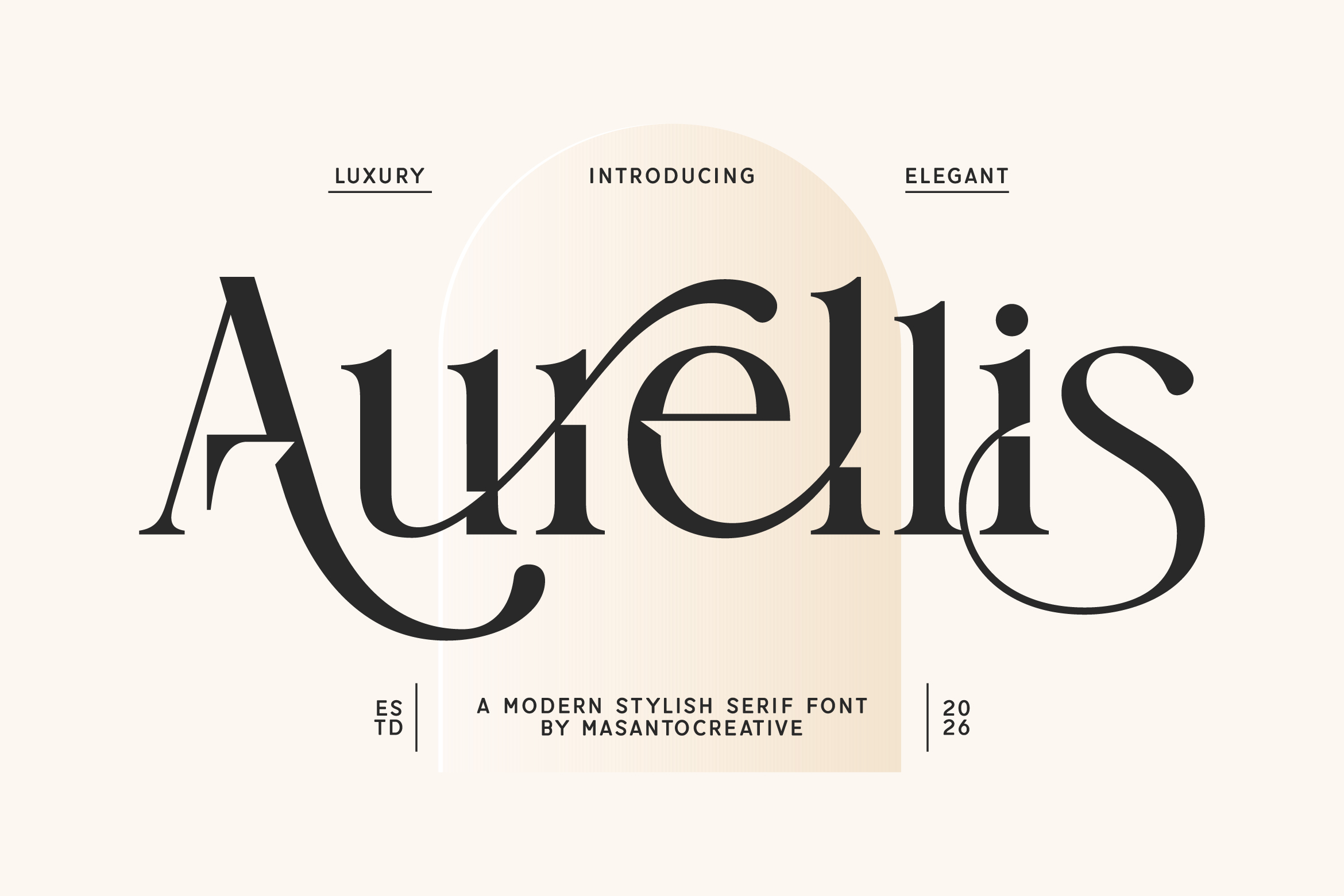
Aurellis is one of the most refined serif fonts in the collection. It features high-contrast strokes, smooth curves, and elegant ligatures that create a truly luxurious feel.
This font is perfect for:
- Fashion branding
- Editorial design
- Luxury packaging
- Wedding invitations
Its timeless style blends classic serif structure with modern elegance, making it a top choice for premium design projects.
2. Orlencia – Modern Elegant Serif
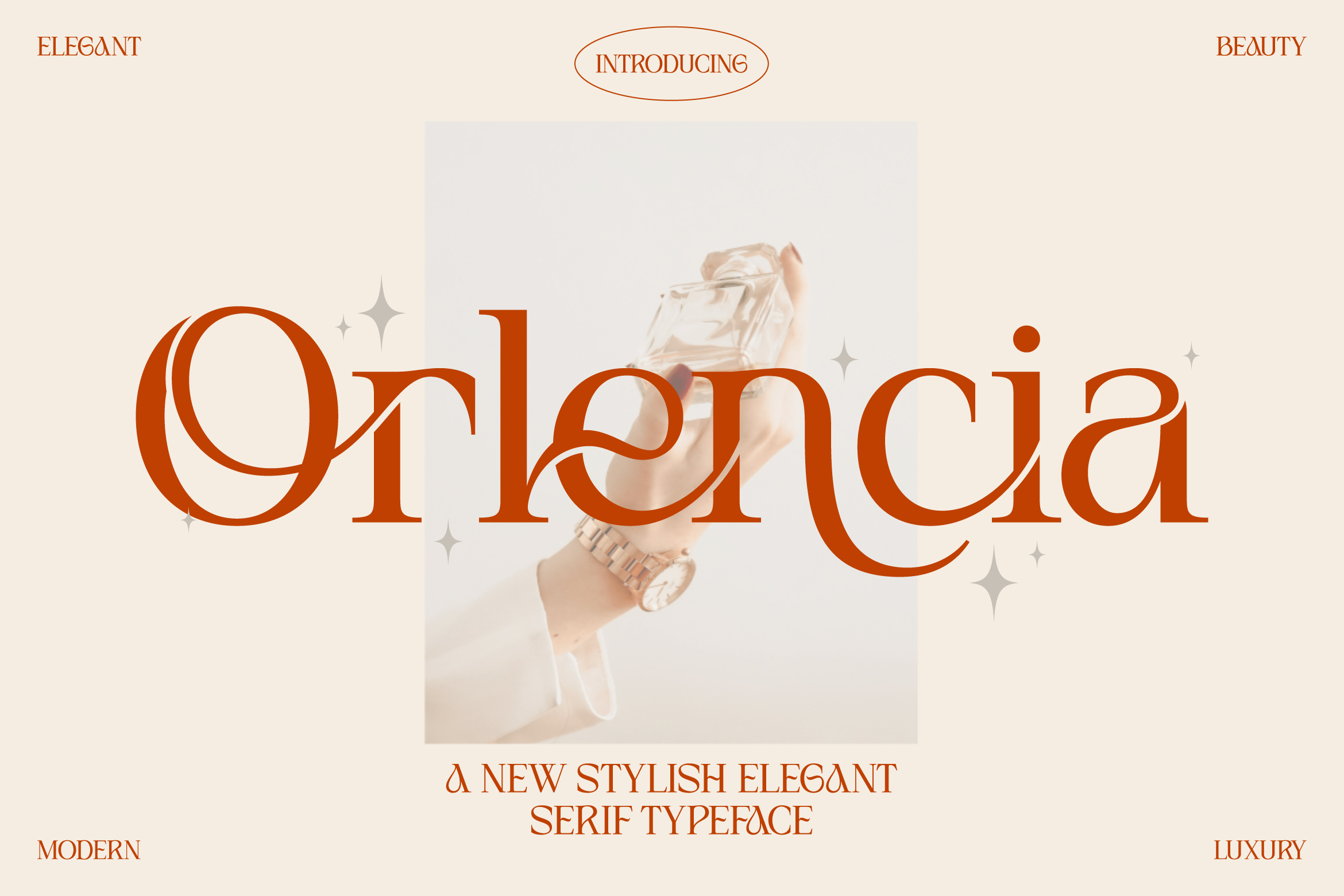
Orlencia is designed for designers who want a feminine, stylish, and sophisticated look. With graceful curves and refined contrast, it works beautifully for beauty brands and boutique businesses.
Best used for:
- Cosmetic branding
- Magazine layouts
- Luxury logos
- Social media graphics
Its combination of ligatures and alternates allows for highly customizable typography.
3. Kofdoh – Elegant Serif Font Family
A premium serif family that offers versatility across multiple weights. Perfect for designers who need consistency across branding systems.
4. Sirelia – Modern Elegant Serif Typeface
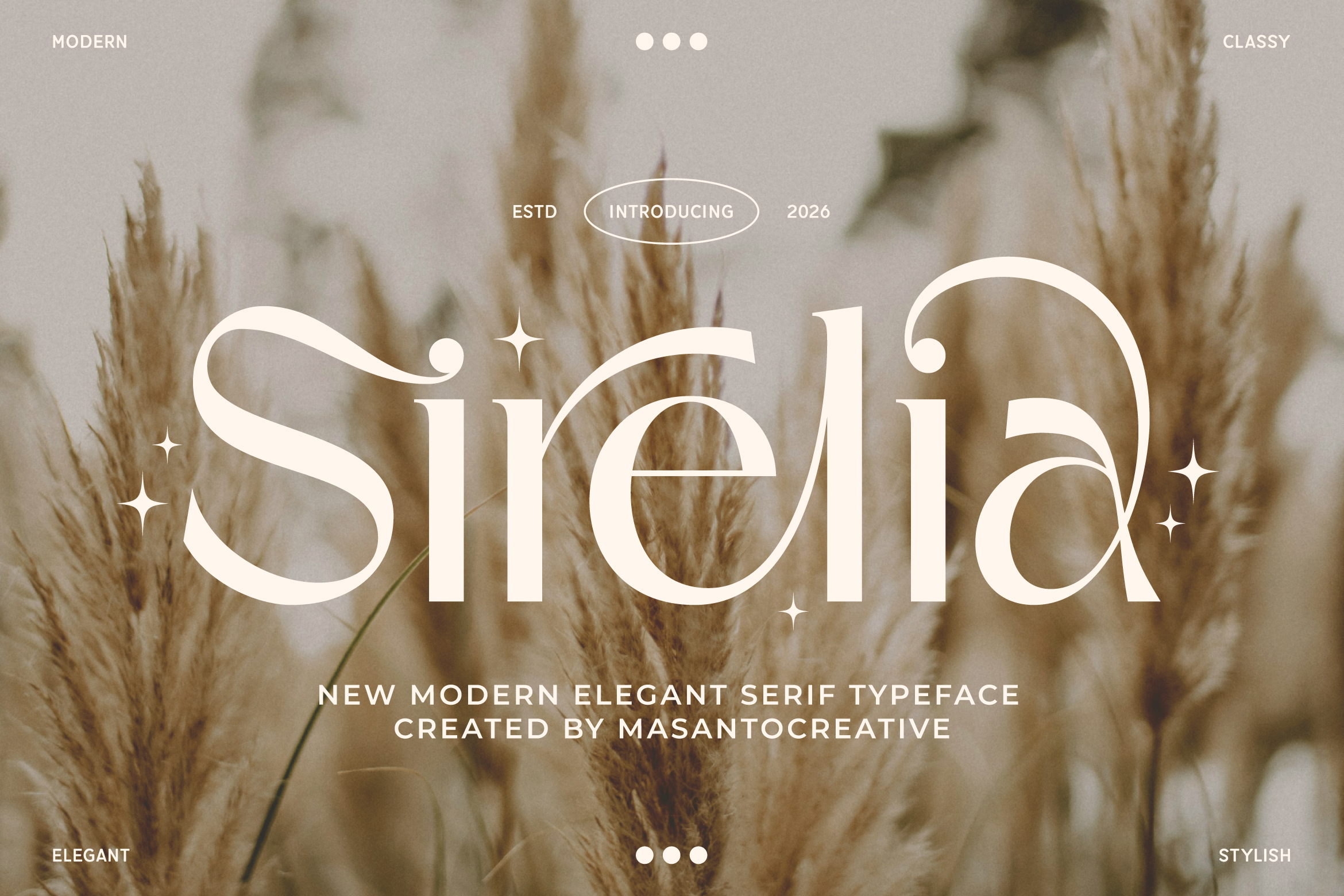
Sirelia brings a soft yet classy tone, ideal for feminine branding and lifestyle projects. Its clean structure makes it easy to read while maintaining elegance.
5. Hizba – Luxury Ornamental Serif Font
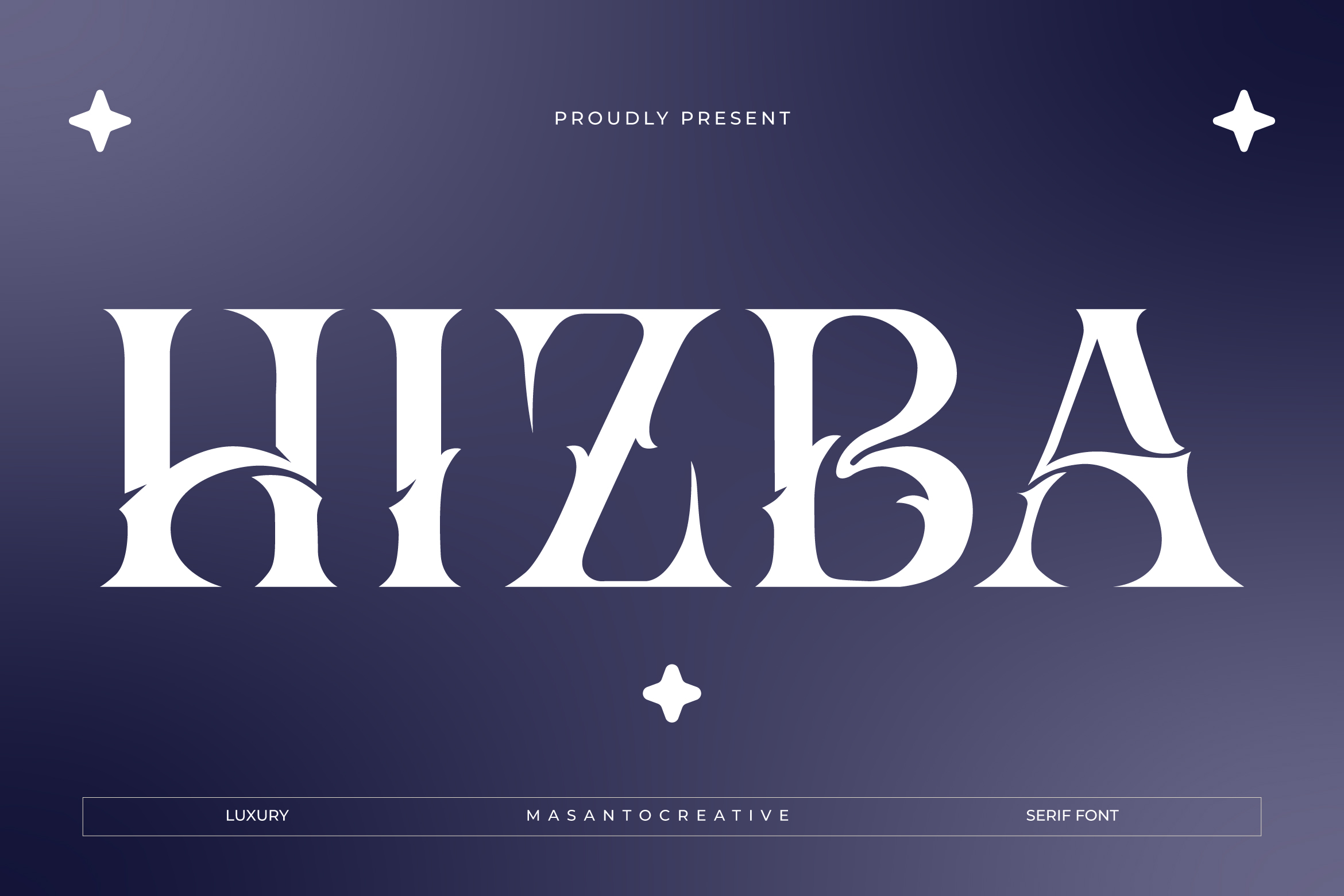
If you’re looking for something more decorative and unique, Hizba is a great choice. It combines ornamental details with serif elegance for a bold luxury statement.
6. Aestica – Elegant Stylish Serif Font
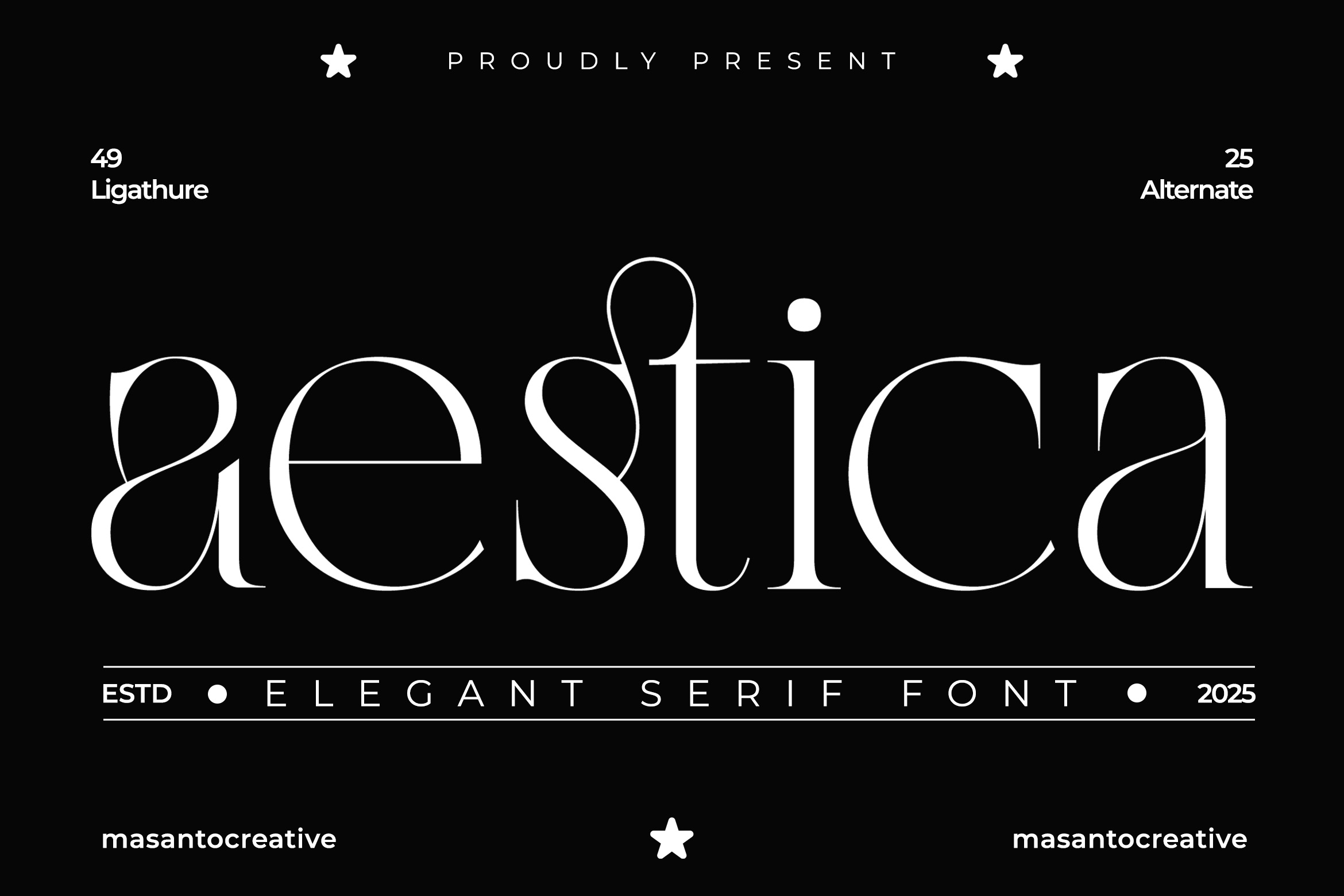
Aestica focuses on minimal elegance with modern styling. It works especially well for branding and digital content.
7. Ophirra – Elegant Serif Font
Ophirra is designed for clean and premium visuals. It’s a great option for logo design and upscale brand identity.
8. Nolira – Elegant Serif Font
Nolira offers a softer serif style, making it ideal for wedding themes and editorial layouts.
9. Elarent – Elegant Display Serif
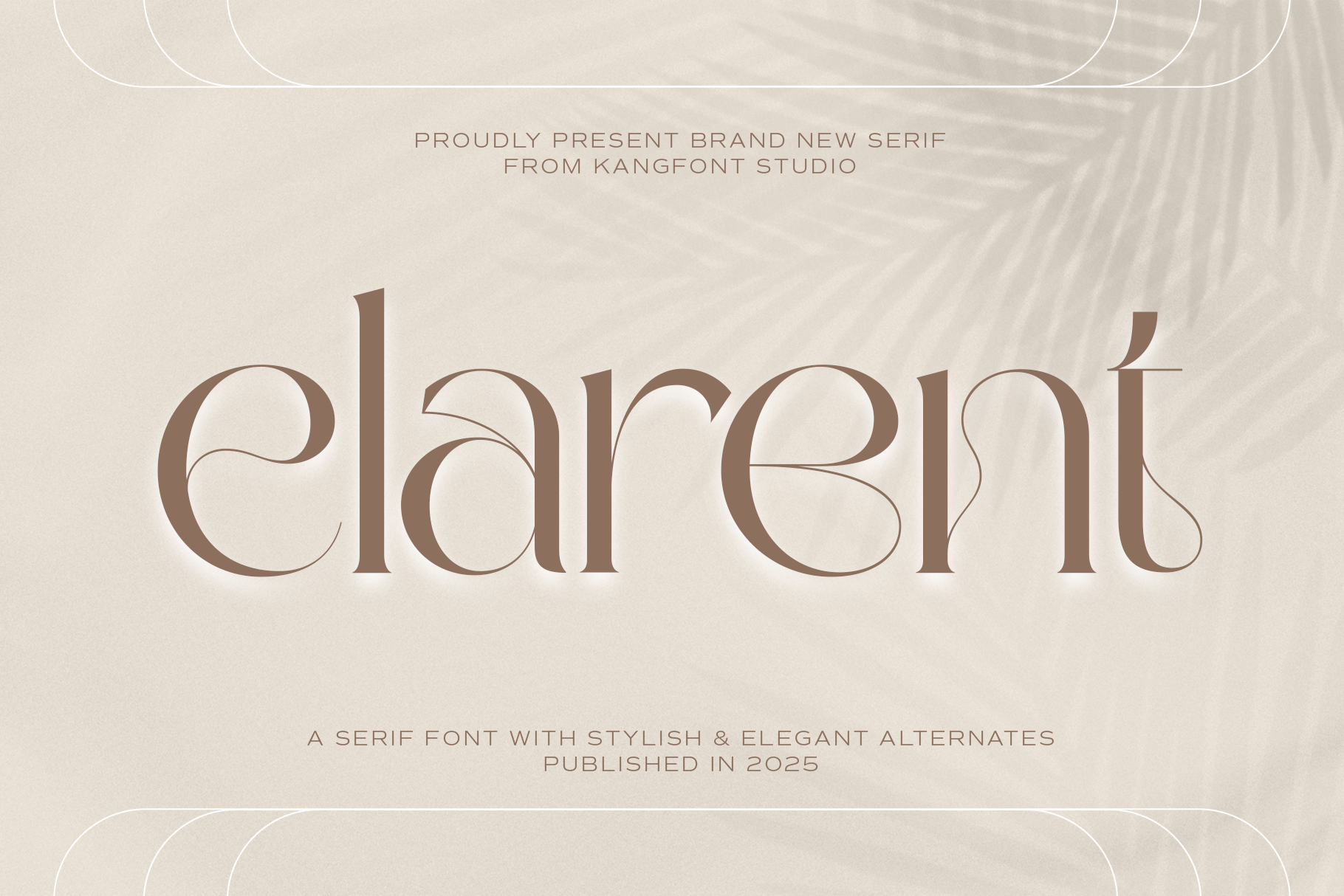
Elarent is perfect for bold headlines and luxury branding. It has strong personality while maintaining elegance.
10. Ovalle – Elegant Display Serif
Ovalle delivers a modern display serif look with high visual impact. Ideal for posters, branding, and high-end marketing materials.
Why Choose Elegant Fonts from Kangfont Studio?
Fonts from Kangfont Studio stand out because they are built for real-world design needs. Their elegant font collection offers:
- High-contrast serif styles for luxury branding
- Ligatures and alternates for unique typography
- Modern + classic balance
- Multi-purpose usability (logo, web, print)
These fonts are especially popular among designers working in:
- Fashion industry
- Beauty & cosmetics
- Wedding & events
- Editorial & publishing
To maximize the impact of elegant fonts:
- Use them for headlines and logos, not long paragraphs
- Pair with minimal sans serif fonts for balance
- Adjust letter spacing (tracking) for better readability